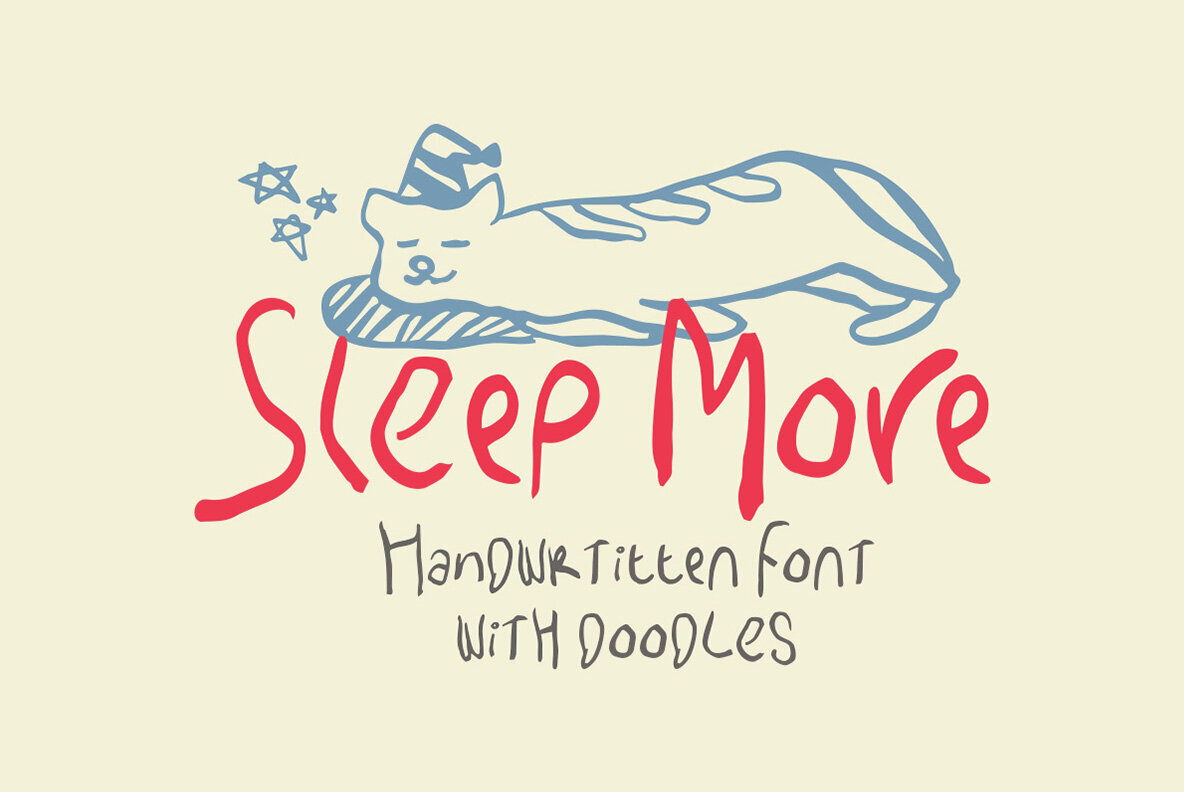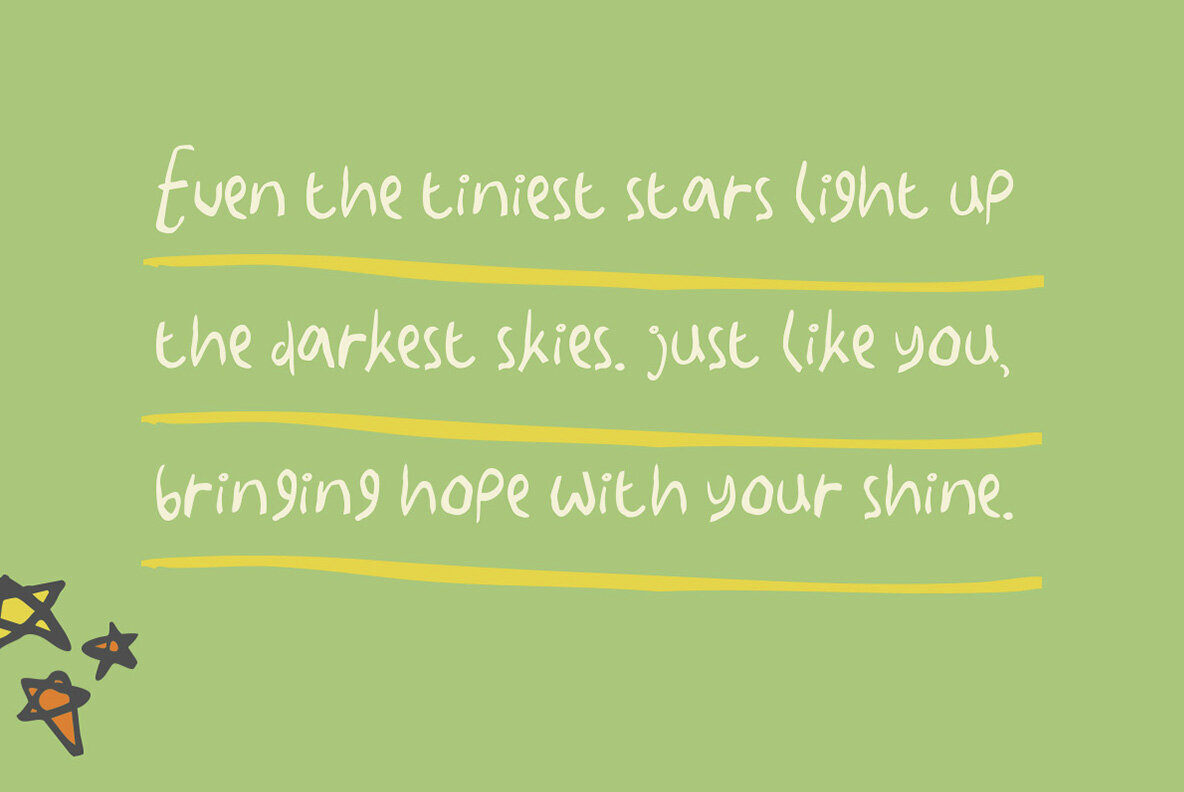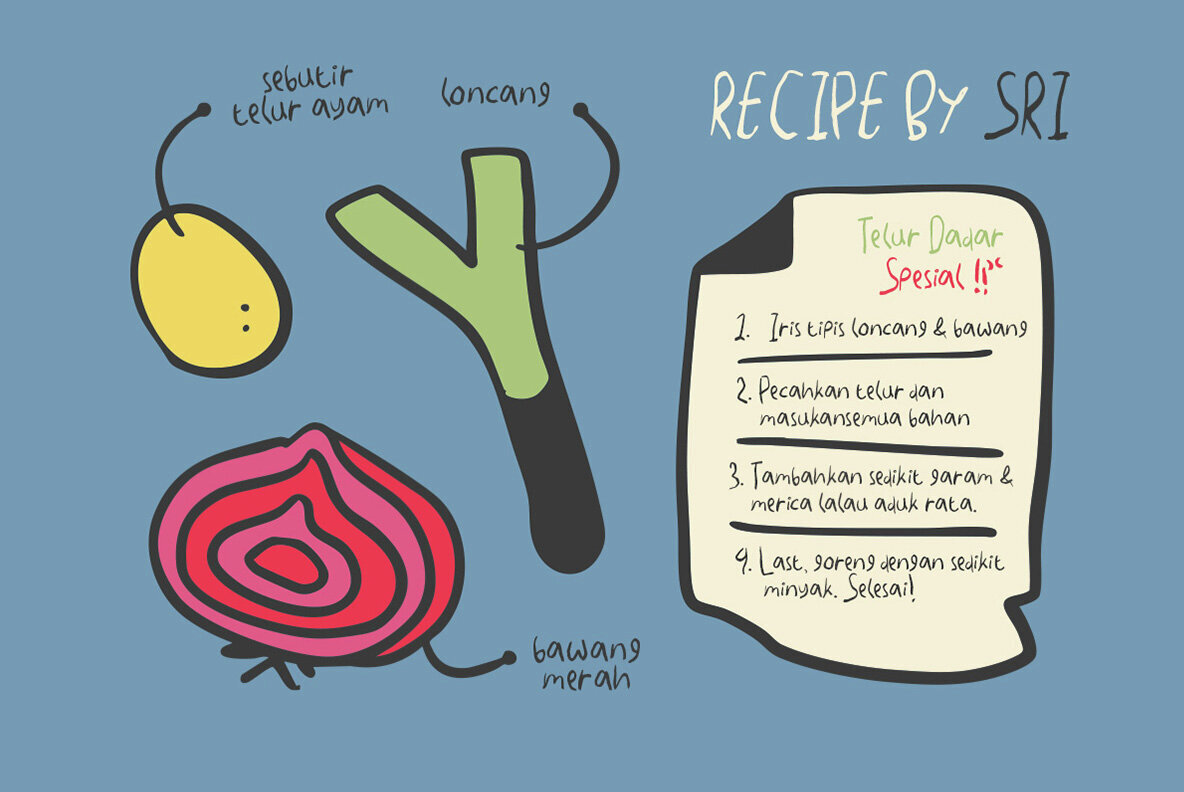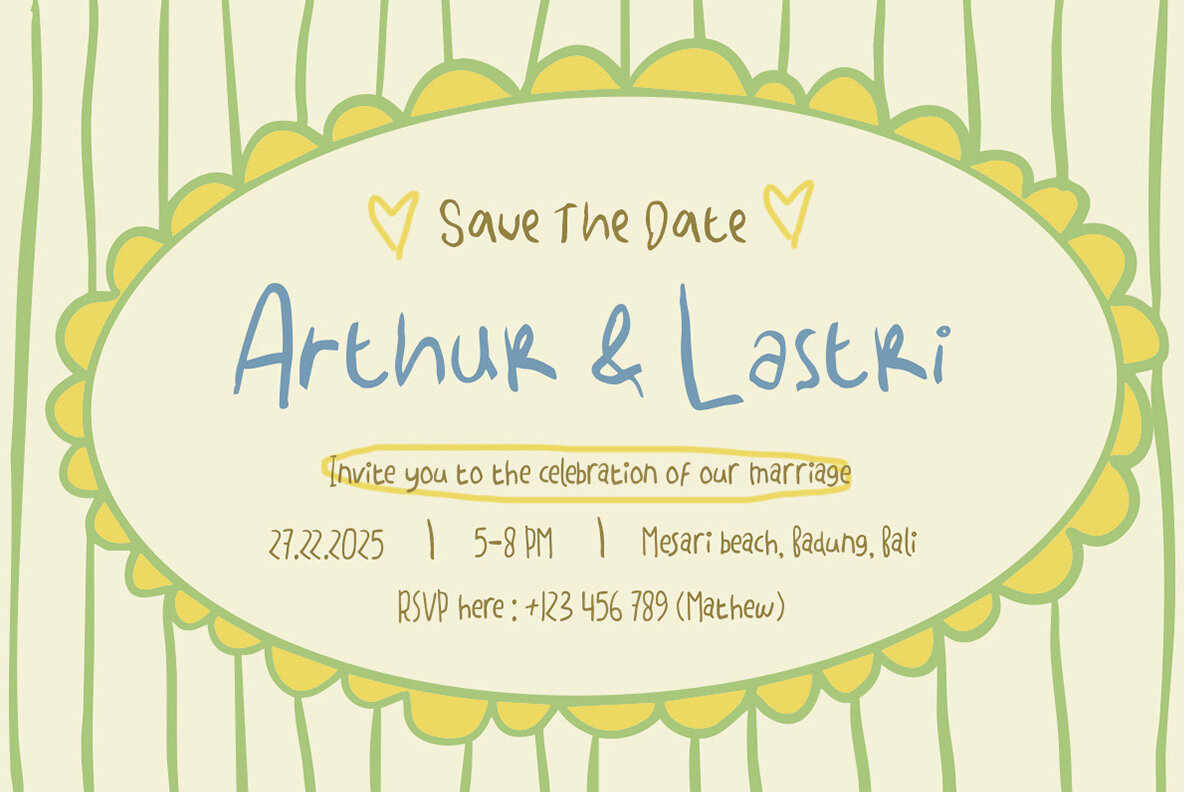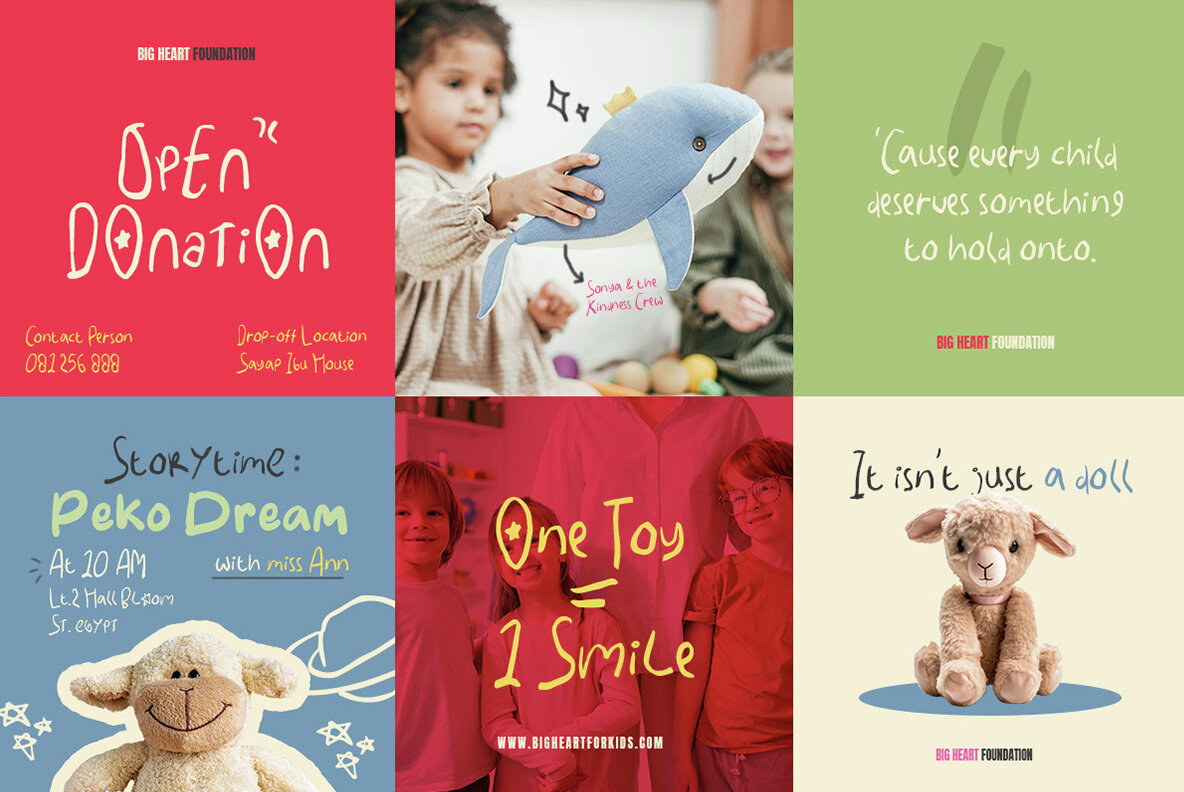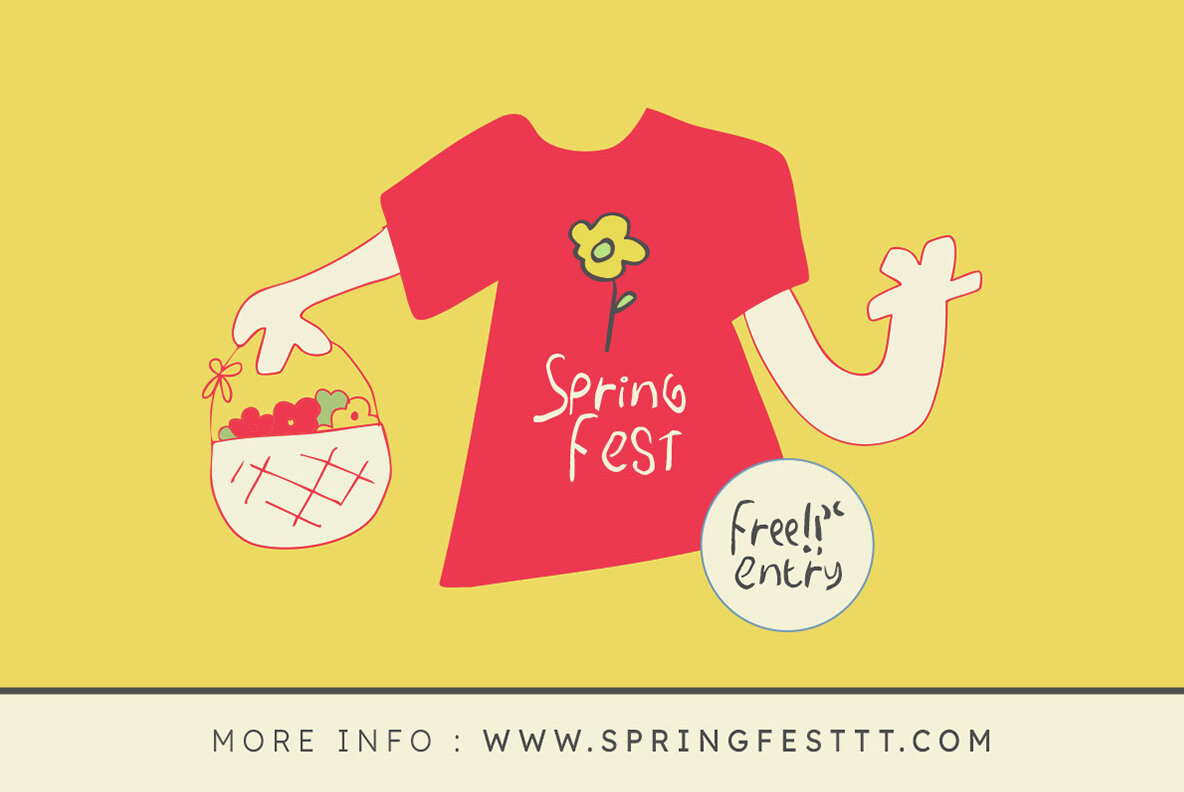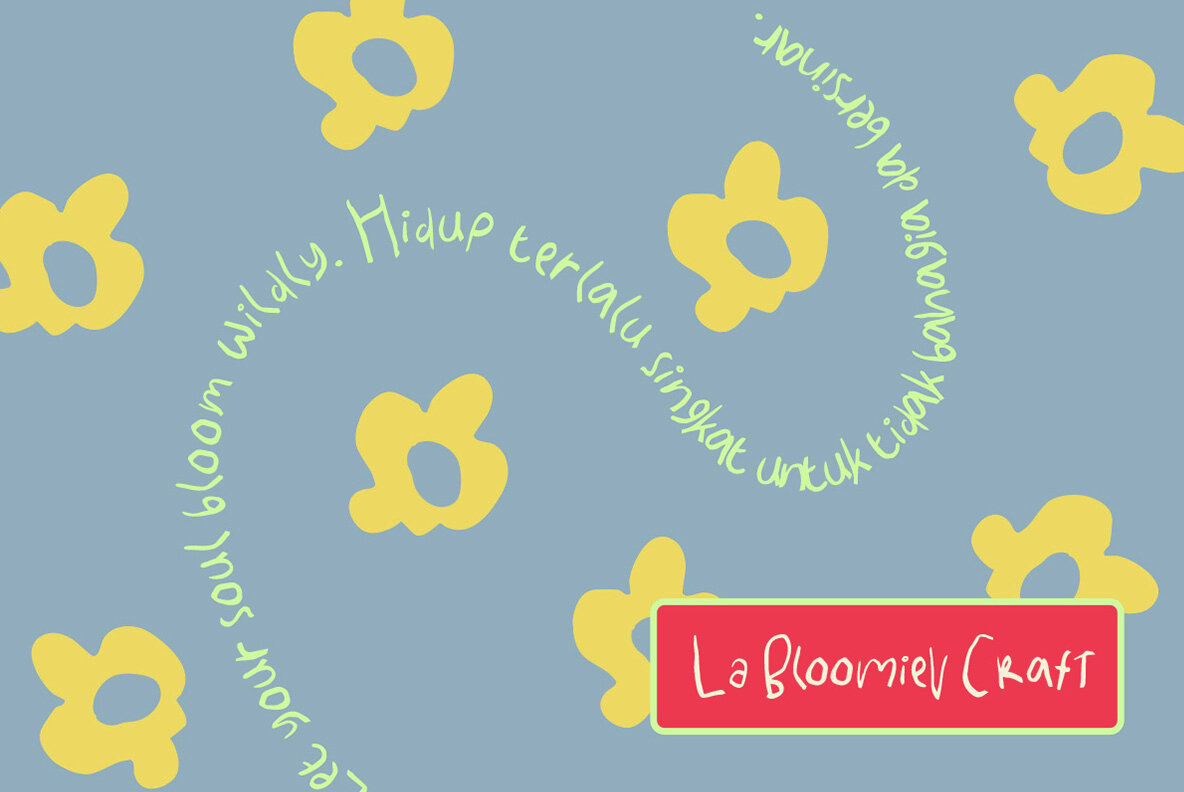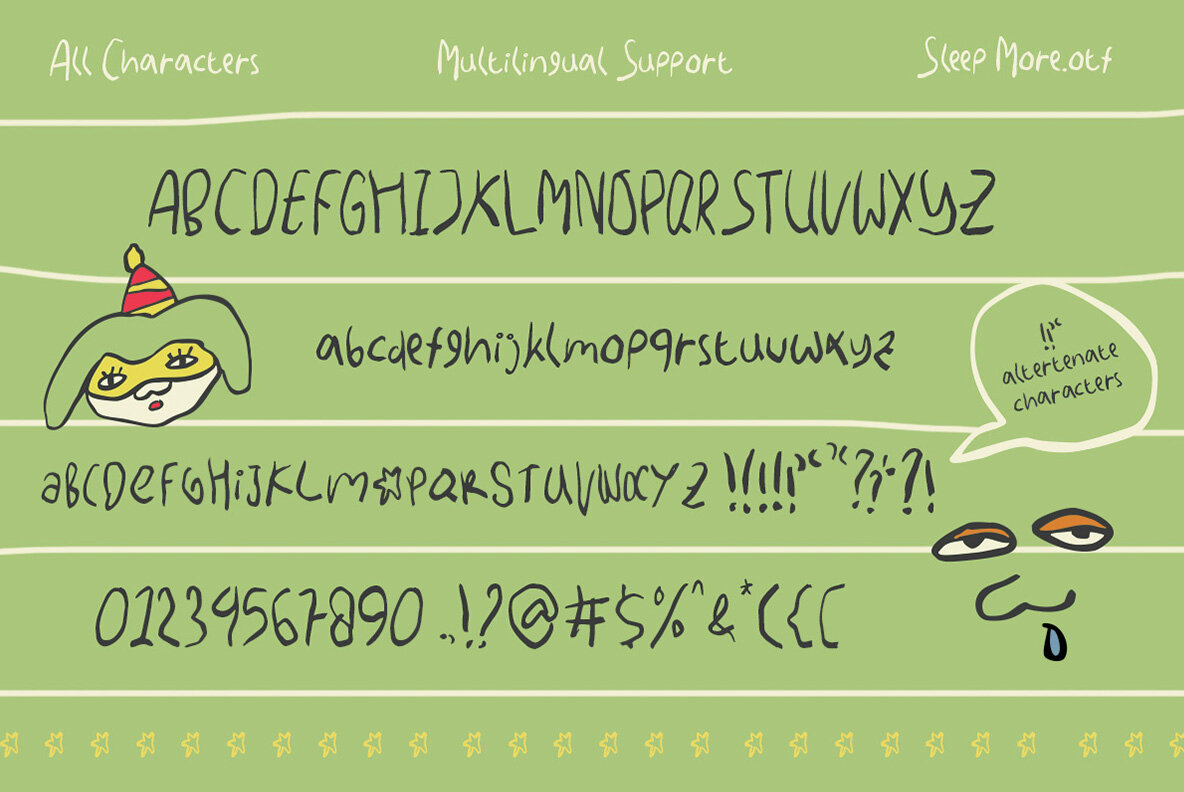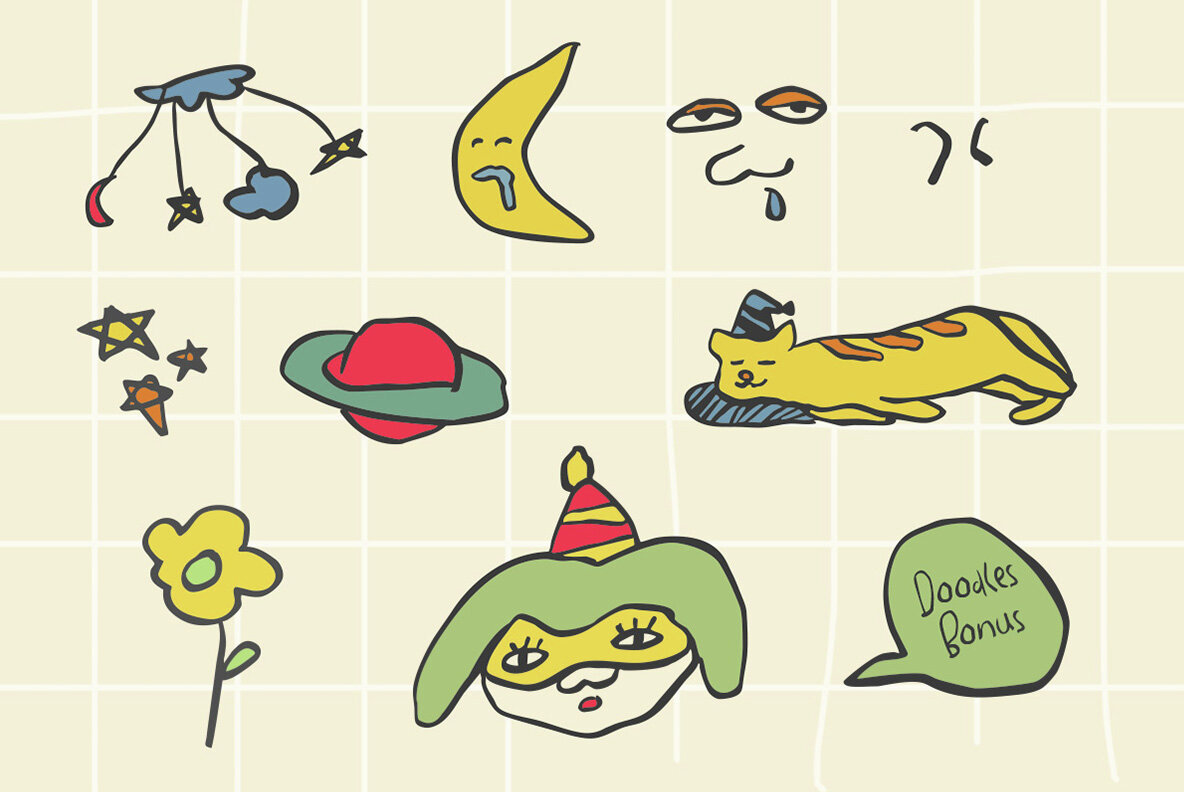
Sleep More Font
SL Sleep More
Sleep More is a delightful handwritten font that captures the essence of warmth and whimsy. Infused with playful strokes and charming doodles like sleepy cats and twinkling stars, it creates an enchanting atmosphere reminiscent of a bedtime story. Ideal for storybooks, sleepover invitations, or designing adorable labels, this font evokes a sense of calm and creativity.Sleep More: Whimsical Handwritten Font